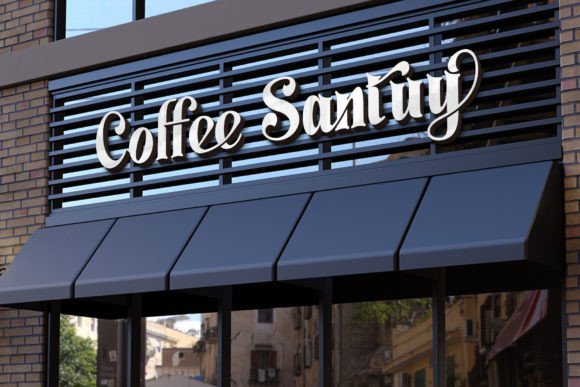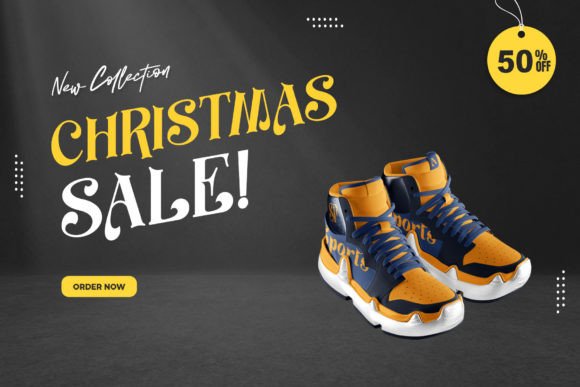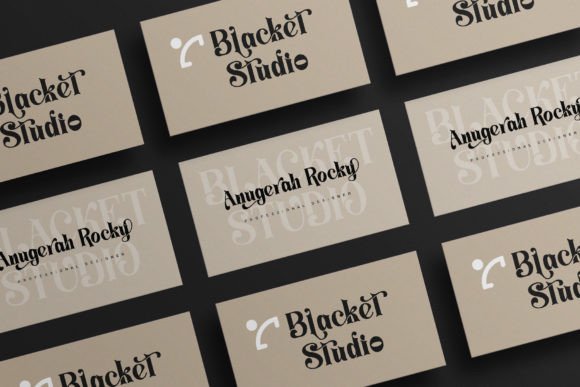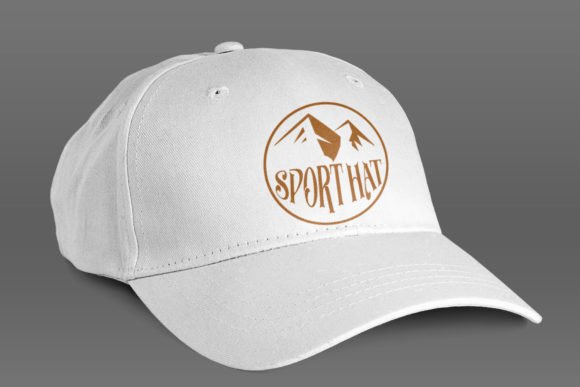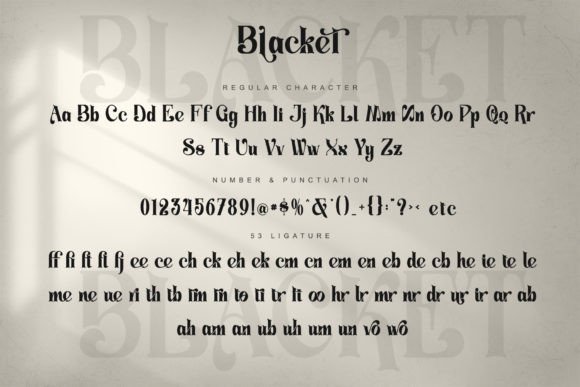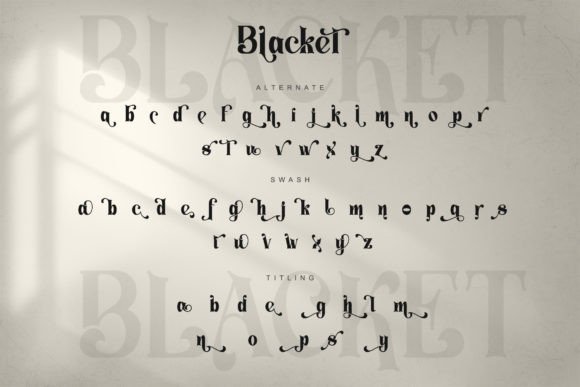
Discover the Elegance of Blacket Font: Elevate Your Designs with Style
In the world of typography, a font can make all the difference in the success of a design project. Whether you’re a seasoned designer or a crafty enthusiast, finding the right font can be a daunting task. However, if you’re looking for a stylish and elegant serif font that can elevate your designs to new heights, look no further than Blacket Font.
What is Blacket Font?
Blacket Font is a beautifully crafted serif font that boasts a neat and clean style, making it suitable for a wide variety of design projects. Its classic and sophisticated look is perfect for designers and crafters who want to add a touch of elegance to their work. Whether you’re designing a logo, creating a brochure, or crafting a social media post, Blacket Font is the perfect choice.
One of the standout features of Blacket Font is its incredible versatility. This font can be used in a vast pool of designs, from modern and minimalist to traditional and ornate. Its clean lines and classic style ensure that it will complement any design aesthetic, elevating it to the highest levels. Whether you’re working on a branding project, a website design, or a print project, Blacket Font is the perfect choice.
Blacket Font is PUA (Private Use Area) encoded, which means that you can access all the glyphs and ligatures with ease. This feature makes it easy to use the font in your designs, even if you’re not a typography expert. With PUA encoding, you can quickly and easily access the font’s many features, including swashes, alternates, and ligatures.
Why Choose Blacket Font?
So why choose Blacket Font for your design projects? Here are just a few reasons:
• Elegant and sophisticated: Blacket Font boasts a classic and sophisticated style that’s perfect for designers and crafters who want to add a touch of elegance to their work.
• Versatile: This font can be used in a wide variety of design projects, from modern and minimalist to traditional and ornate.
• Easy to use: Blacket Font is PUA encoded, making it easy to access all the glyphs and ligatures.
• High-quality: This font is designed to the highest standards, ensuring that it will look great in any design project.
How to Use Blacket Font in Your Designs
Using Blacket Font in your designs is easy. Here are a few tips to get you started:
• Pair it with a sans-serif font: Blacket Font looks great paired with a sans-serif font, such as Arial or Helvetica.
• Use it for headings and titles: This font is perfect for headings and titles, where its elegant and sophisticated style can really shine.
• Experiment with different sizes and colors: Blacket Font looks great in a variety of sizes and colors, so don’t be afraid to experiment and find the perfect look for your design.
In conclusion, Blacket Font is a stylish and elegant serif font that’s perfect for designers and crafters who want to add a touch of sophistication to their work. Its versatility, ease of use, and high-quality design make it a great choice for a wide variety of design projects. Whether you’re working on a branding project, a website design, or a print project, Blacket Font is the perfect choice. So why wait? Download Blacket Font today and start elevating your designs to new heights!